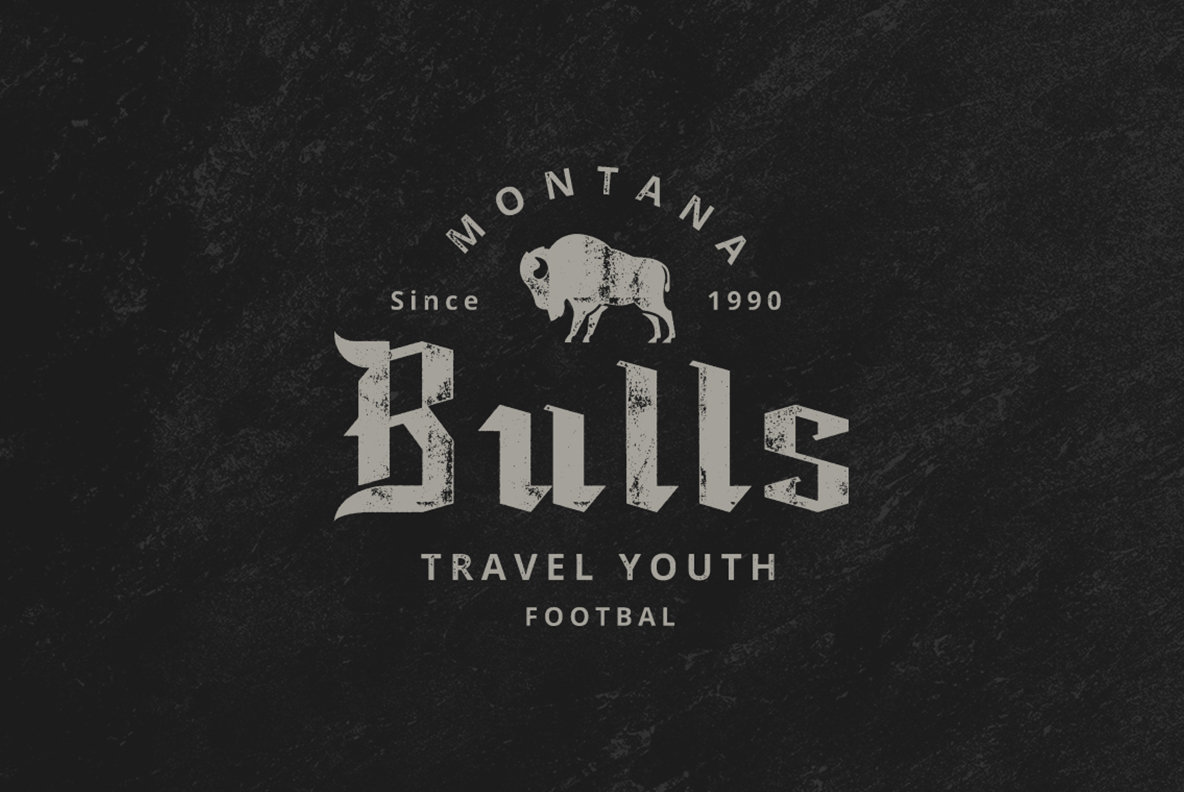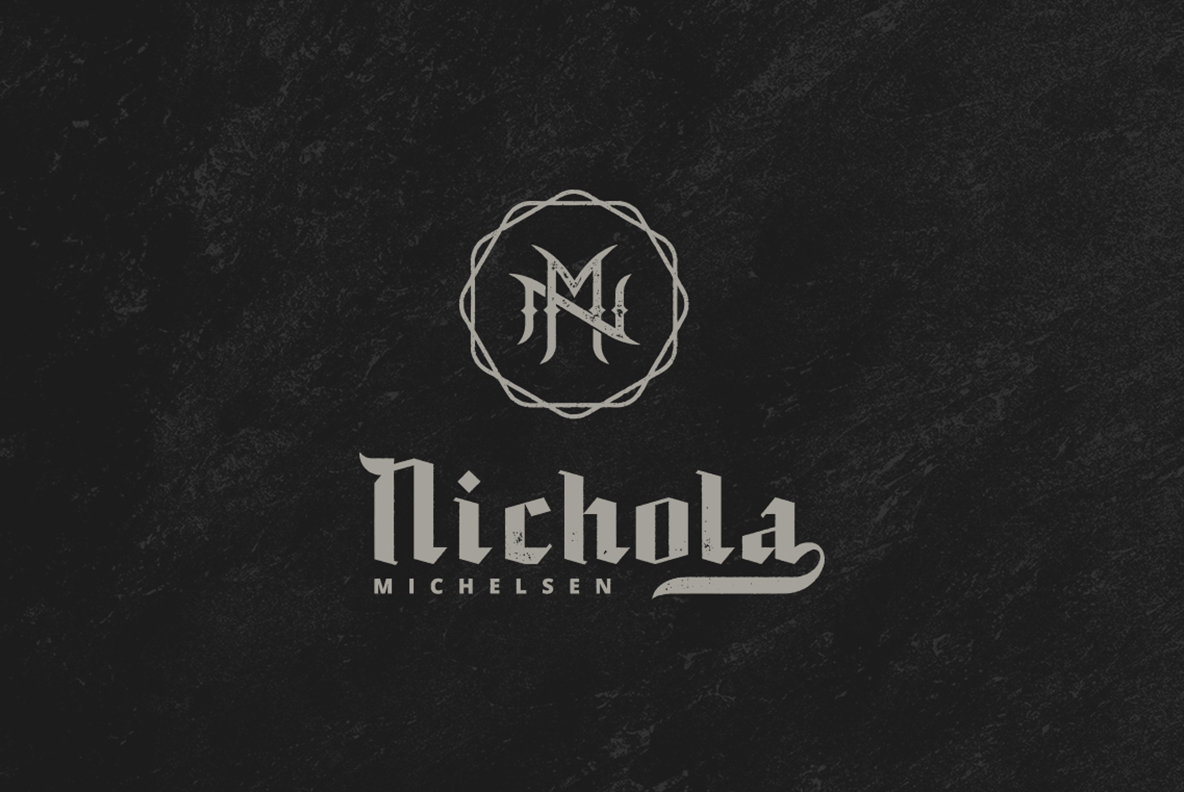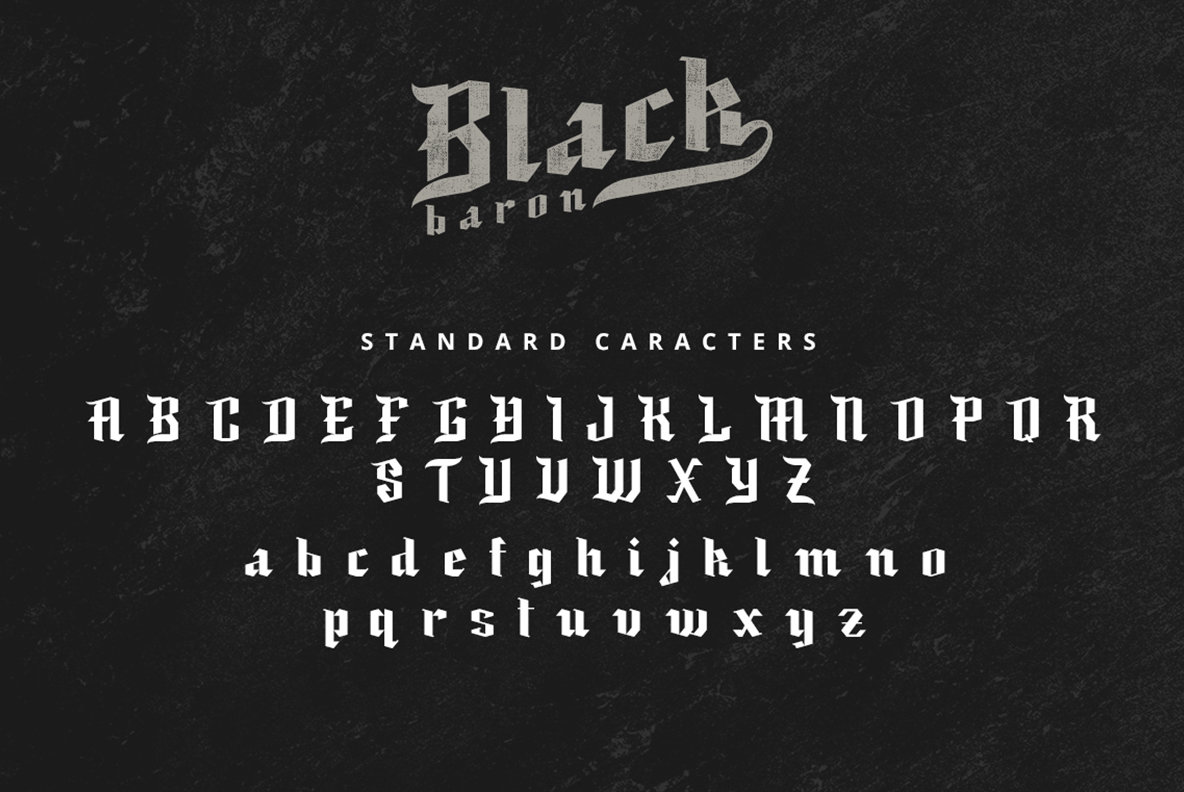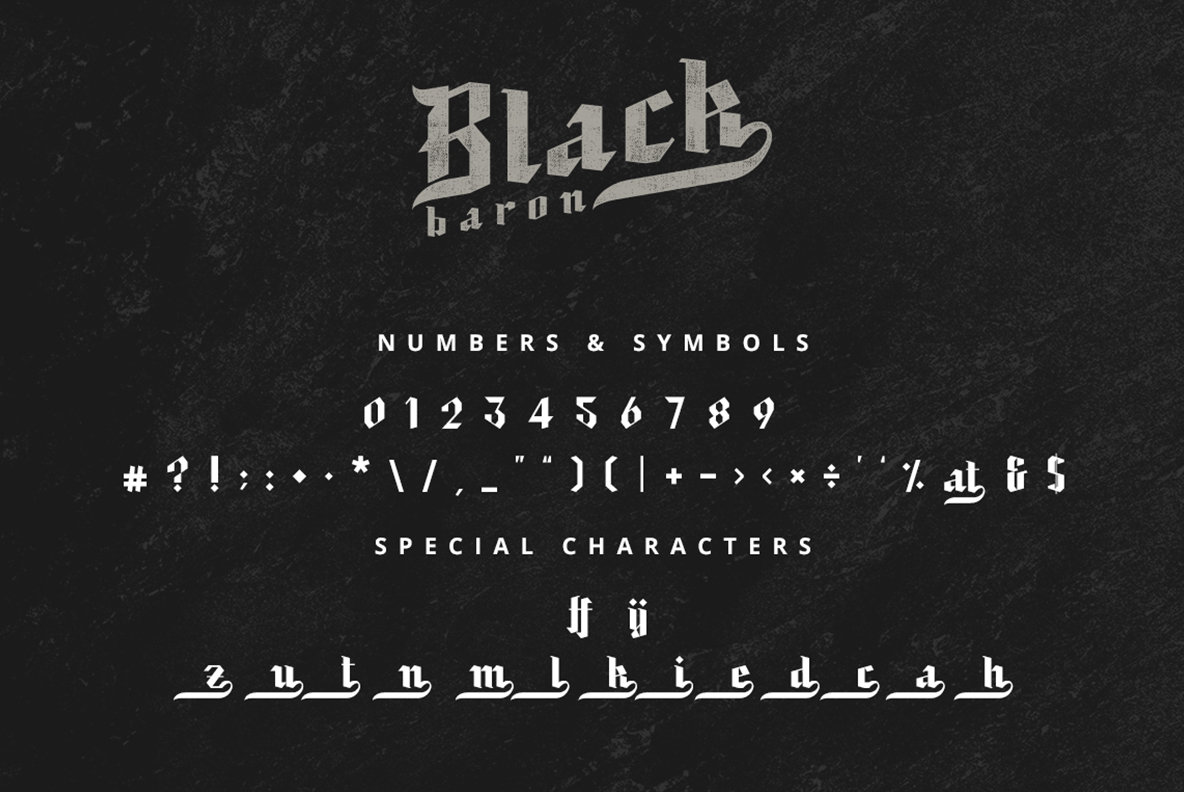
Black Baron 1
Inspired by medieval script lettering with an air of vintage/retro style. Black Baron is suitable for any project that requires a medieval feel.